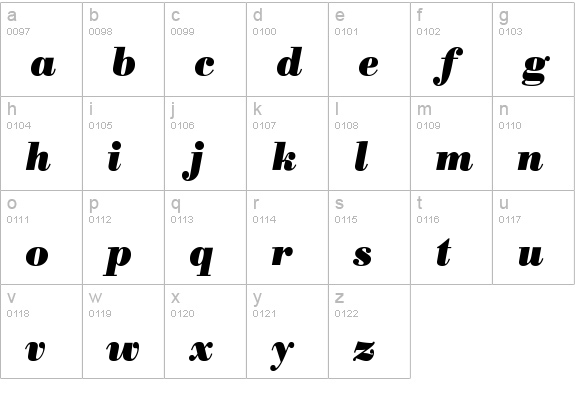
Bodoni Berthold Exp BQ Bold Italic OsF is a strong, high-contrast, italic variant in the Bodoni typeface family \xE2\x80\x94 well suited to headlines, attention-grabbing titles, and strong calls-to-action.
Bodoni Berthold Exp BQ Bold Italic OsF font exudes elegance and sophistication with its sleek design and refined curves. The bold italic style adds a touch of modernity to this classic typeface, making it perfect for conveying a sense of luxury and style in your designs. The Bodoni Berthold Exp BQ Bold Italic OsF font is ideal for headlines, branding, and editorial design projects where a touch of sophistication is desired. What's even better is that this stunning font is freely available to download at FontsMarket.com. Now you can elevate your designs with this timeless typeface without any cost, making it a valuable addition to your font collection. Don't miss out on the opportunity to enhance your projects with the Bodoni Berthold Exp BQ Bold Italic OsF font - download it for free today at FontsMarket.com!